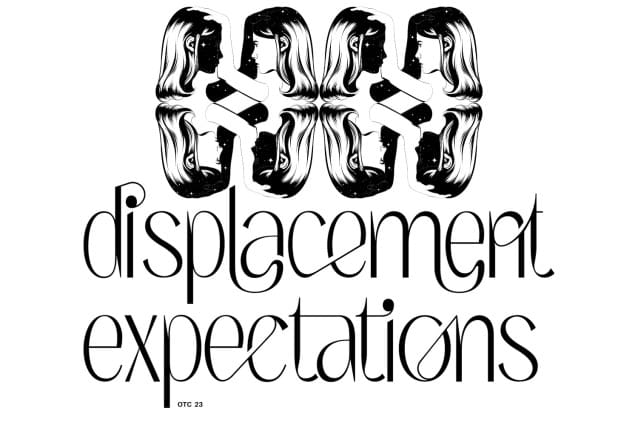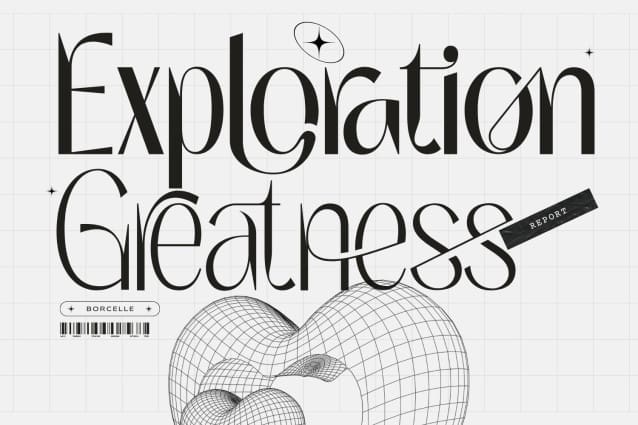
Exploration Greatness Font
Exploration Greatness Font is a condensed sans-serif family. Regular stroke, fun character with are 100 of ligatures. To give you an extra creative work. It’s has loads of options to play around with. Included in the glyph set is Small-Caps, a Stylistic Uppercase Superscript, Stylistic Alternates and Circled Numbers. This font is good for logo design, Social media, Movie Titles, Books Titles, a short text even a long text letter and good for your secondary text font with script or serif.
Exploration Greatness was built with OpenType features and includes 100 ligatures, alternate, numbers, punctuation, and it also supports other languages.